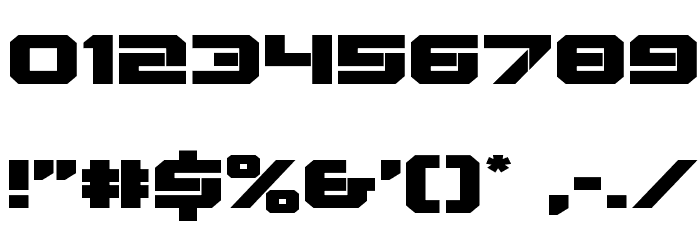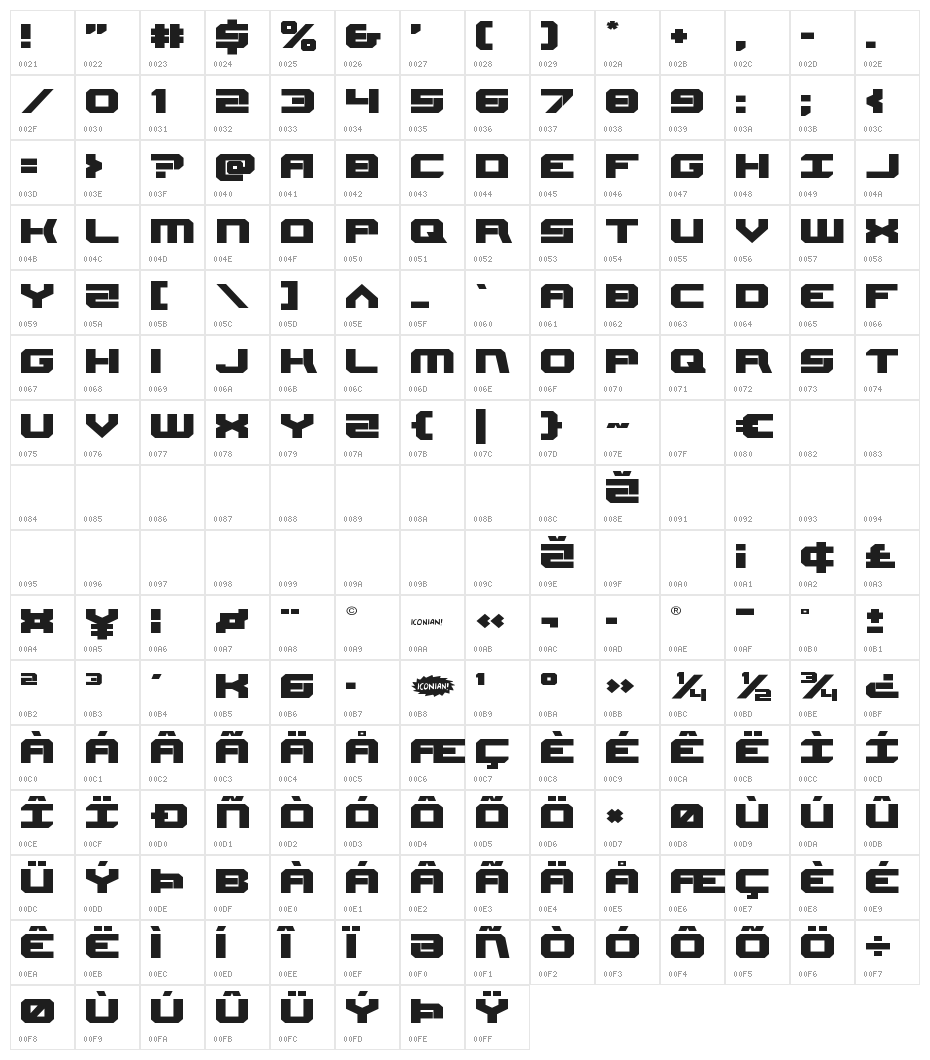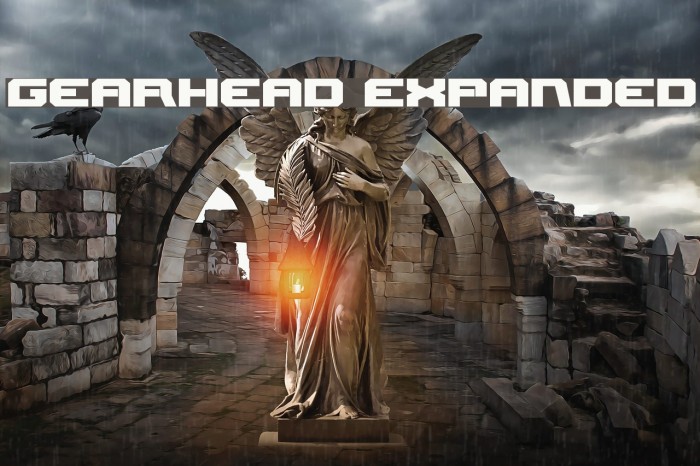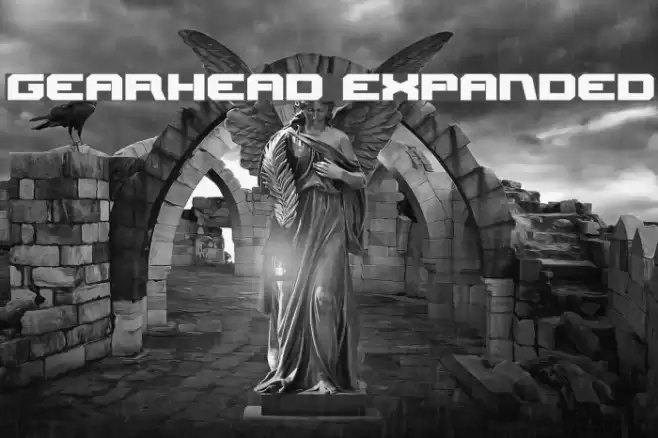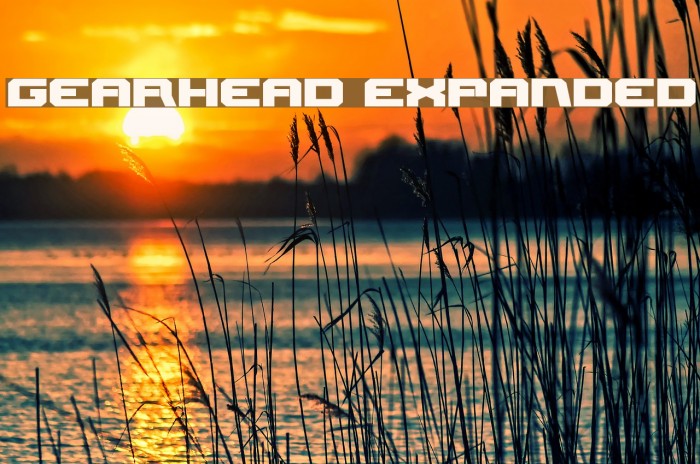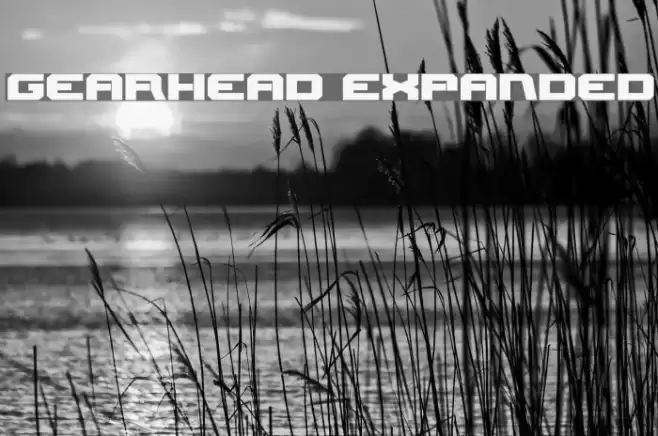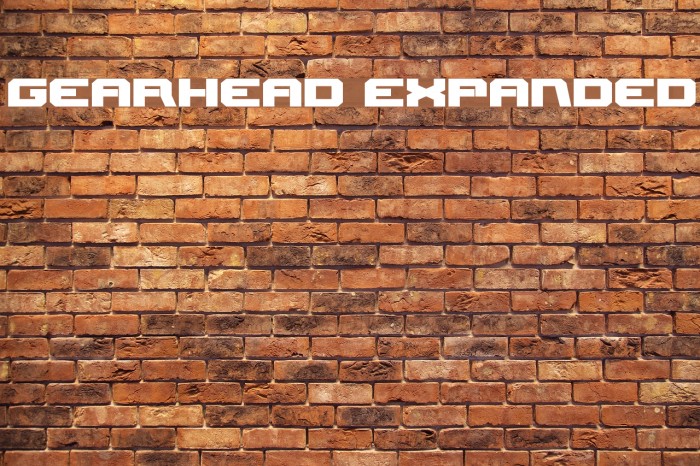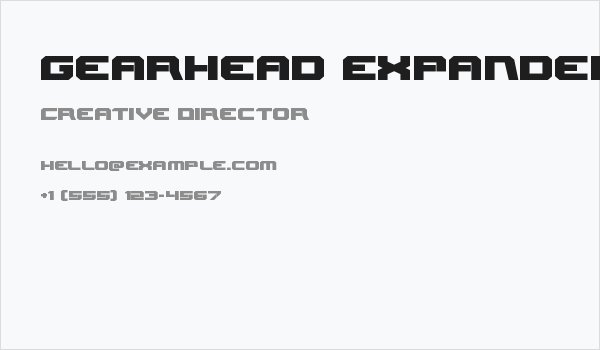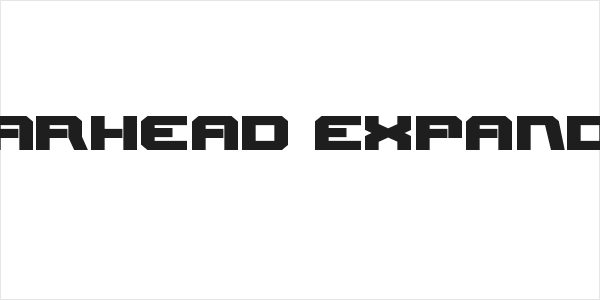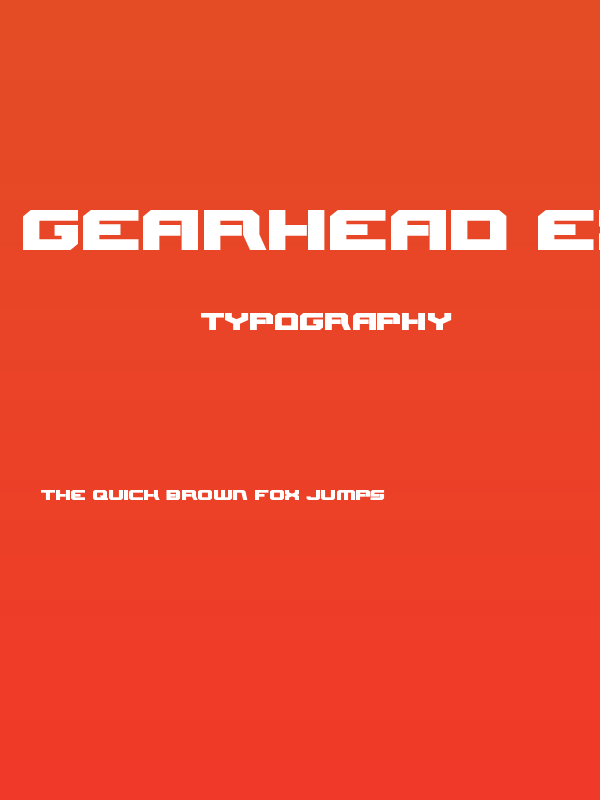
Gearhead Expanded Font
Gearhead Expanded Description
This font features a bold, geometric design with a distinctly futuristic and industrial feel. The characters are constructed with sharp angles and straight lines, giving them a mechanical appearance. The expanded width of the letters enhances their presence, making them ideal for impactful headlines or logos. The uniformity and symmetry in the design contribute to a cohesive and modern aesthetic. The font's strong, solid structure is complemented by its consistent stroke weight, which maintains a balanced and harmonious look across all characters. The inclusion of numbers and special characters ensures versatility for various design needs.
| Proposed Projects | Ideal for technology branding, sci-fi themed projects, video game titles, and industrial design applications. |